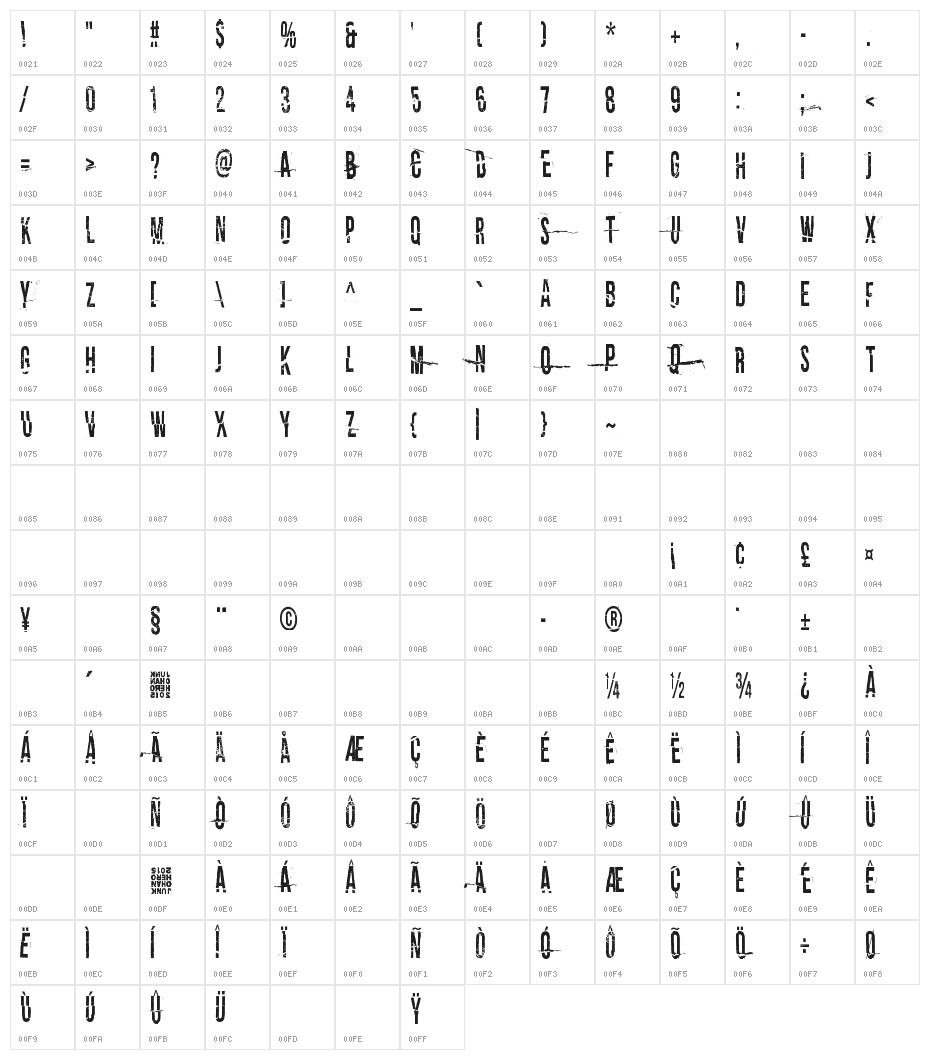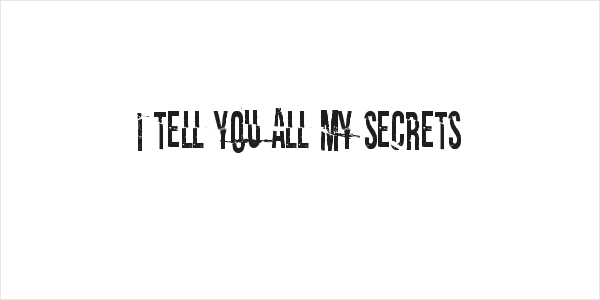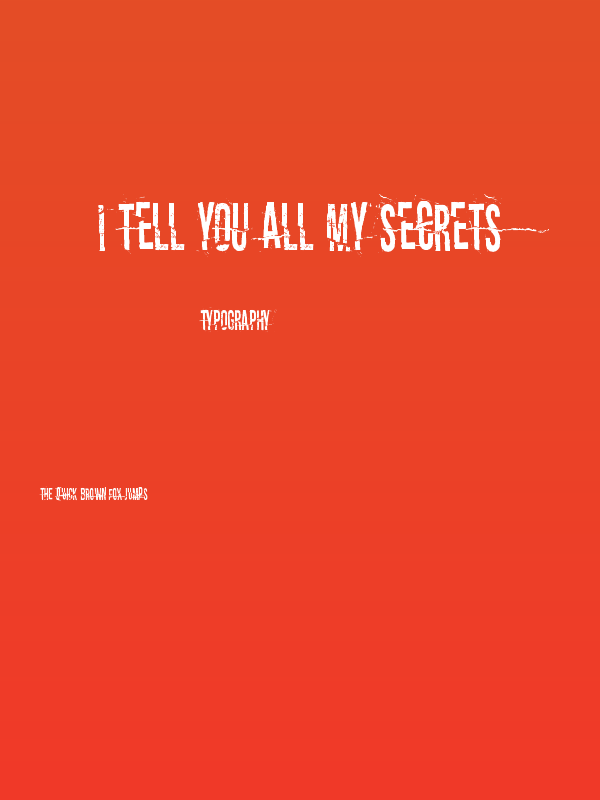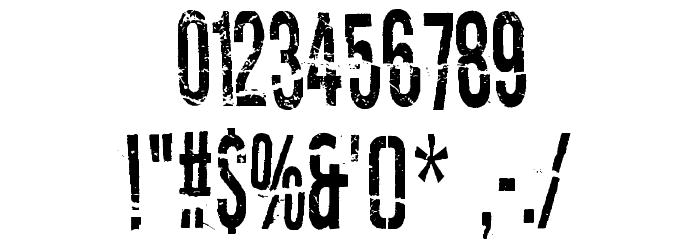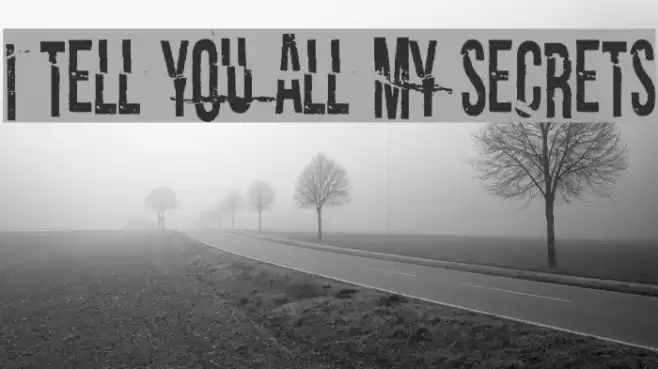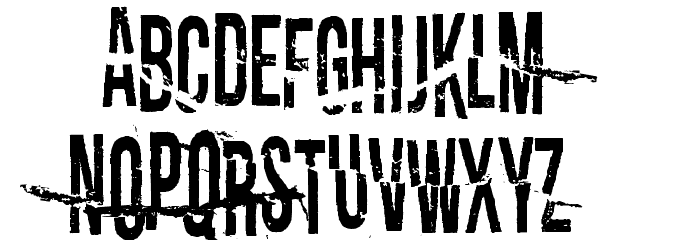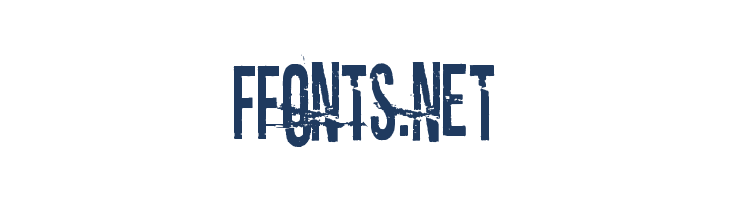
I tell you all my secrets Font
I tell you all my secrets Description
This font features a distressed and grunge style, characterized by its rough, textured appearance that mimics a worn or weathered look. The letters are bold and uppercase, with a striking, impactful presence. The irregularities and imperfections in the strokes give it a raw, edgy feel, making it ideal for designs that require a rebellious or gritty aesthetic. The font maintains a consistent width and height across characters, ensuring readability despite its distressed nature. It includes a full set of uppercase letters, numbers, and a selection of special characters, all maintaining the same distressed effect.
| Overall Style | Grunge, Edgy |
| Proposed Projects | Ideal for album covers, posters, streetwear branding, or any project needing a gritty, rebellious look. |